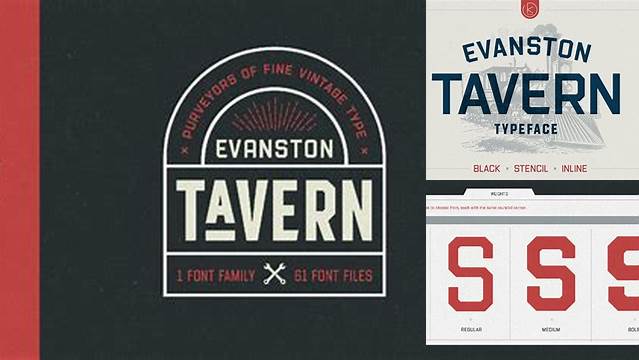
Evanston Tavern Font: Free Download & Bold Stencil Style
Hey guys! Are you on the hunt for that perfect vintage vibe for your next project? Look no further! Today, we're diving deep into the Evanston Tavern 1846 Bold Stencil Font. This font is a total game-changer for anyone looking to add a touch of historical charm and rugged elegance to their designs. Whether you're crafting posters, designing logos, or even just sprucing up your social media, this font has got you covered. We'll explore everything from its unique characteristics and historical context to where you can snag it for free and how to best use it in your projects. So, buckle up and let's get started!
Evanston Tavern Font: An Overview
The Evanston Tavern font is more than just a typeface; it's a piece of history rendered in a digital format. Inspired by the bold, stenciled lettering commonly found on vintage signs and advertisements, particularly those of taverns and establishments from the 1800s, this font exudes a sense of authenticity and old-world craftsmanship. The boldness of the letters ensures legibility and impact, while the stencil effect adds a unique, slightly distressed texture that enhances its vintage appeal. Perfect for projects that aim to evoke nostalgia, the Evanston Tavern font brings a touch of the past into the present, making it an excellent choice for designers seeking to create a timeless impression.
The History Behind Evanston Tavern 1846
To truly appreciate the Evanston Tavern 1846 Bold Stencil Font, it's essential to understand its historical roots. The year 1846 marks a significant period in American history, a time of westward expansion, industrial growth, and burgeoning urban centers. Taverns, like the fictional "Evanston Tavern," served as social hubs, places where communities gathered, and news was shared. The signage of these establishments often featured bold, stenciled lettering designed to catch the eye of passersby. This font pays homage to that era, capturing the spirit of a time when craftsmanship and durability were highly valued. By incorporating this font into your designs, you're not just choosing a typeface; you're invoking a sense of history and tradition.
Key Characteristics of the Bold Stencil Font
What makes the Evanston Tavern 1846 Bold Stencil Font stand out? It's all in the details. The font boasts thick, sturdy letterforms that command attention. The stencil effect, achieved through strategically placed gaps in the letters, adds a touch of ruggedness and visual interest. This design element not only enhances the font's vintage aesthetic but also makes it incredibly versatile. Whether you're using it for headlines, subheadings, or even body text, the Evanston Tavern font maintains its distinctive character and readability. Its bold nature ensures that your message will be seen and remembered, making it an invaluable asset for any designer looking to make a statement.
Using Evanston Tavern Font in Graphic Design
Now that you've got your hands on the Evanston Tavern 1846 Bold Stencil Font, let's talk about how to use it effectively in graphic design. This font is a powerhouse for creating vintage-inspired logos, posters, and advertisements. Its bold, stenciled letterforms instantly evoke a sense of history and authenticity, making it perfect for brands that want to convey a sense of tradition or craftsmanship. Consider pairing it with other vintage design elements, such as distressed textures, muted colors, and hand-drawn illustrations, to create a cohesive and compelling visual narrative. Whether you're designing a beer label, a restaurant menu, or a promotional flyer, the Evanston Tavern font will help you capture the essence of a bygone era.
Evanston Tavern Font for Logo Design
When it comes to logo design, the Evanston Tavern 1846 Bold Stencil Font can be a game-changer. Its strong, distinctive letterforms make it ideal for creating memorable and impactful logos. The stencil effect adds a unique touch that sets it apart from more generic fonts, while its vintage aesthetic lends a sense of timelessness to your brand. Consider using this font for businesses that want to project a sense of heritage, craftsmanship, or authenticity. For example, it would be perfect for a brewery, a distillery, a barber shop, or any other establishment that values tradition and quality. Pair it with a simple, yet elegant emblem or illustration to create a logo that truly stands out.
Creating Posters with Bold Stencil Fonts
Designing posters that grab attention is an art, and the Evanston Tavern 1846 Bold Stencil Font is your brush. This font's bold, eye-catching letterforms are perfect for headlines and titles that need to make a statement. The stencil effect adds a touch of visual interest and texture, making your posters stand out from the crowd. Use it to create posters for events, promotions, or even just decorative art. Consider incorporating other vintage design elements, such as distressed backgrounds, retro illustrations, and aged color palettes, to enhance the overall aesthetic. Whether you're promoting a concert, a festival, or a local business, the Evanston Tavern font will help you create posters that are both visually appealing and highly effective.
Typography Pairing Suggestions
Even the best fonts need a good partner, and the Evanston Tavern 1846 Bold Stencil Font is no exception. When it comes to typography pairing, consider fonts that complement its vintage aesthetic and bold personality. A classic serif font, such as Garamond or Times New Roman, can provide a sophisticated contrast, while a clean sans-serif font, such as Helvetica or Arial, can offer a more modern counterpoint. Experiment with different combinations to find the perfect balance. Remember to consider the overall tone and message of your design when making your font choices. A well-chosen typography pairing can elevate your design and make it more visually appealing and effective.
Exploring Similar Bold Stencil Fonts
If the Evanston Tavern 1846 Bold Stencil Font isn't quite what you're looking for, don't worry – there are plenty of similar fonts out there to explore. Look for other bold stencil fonts with a vintage or industrial feel. Some popular options include Bebas Neue, Impact, and Stencil. Each of these fonts has its own unique characteristics, so experiment with different options to find the one that best suits your needs. Consider the overall tone and message of your design when making your font choice. A slightly different font can make a big difference in the overall impact of your design.